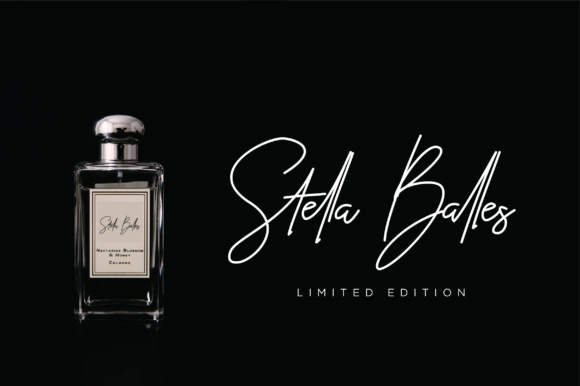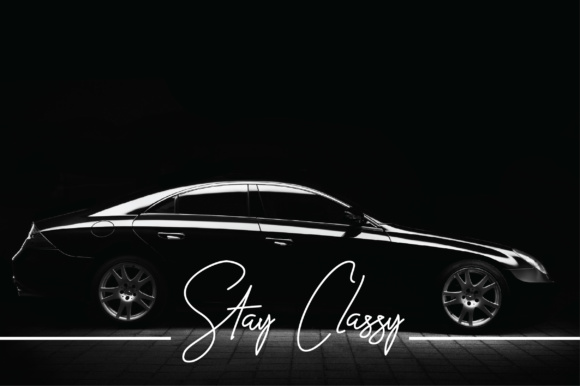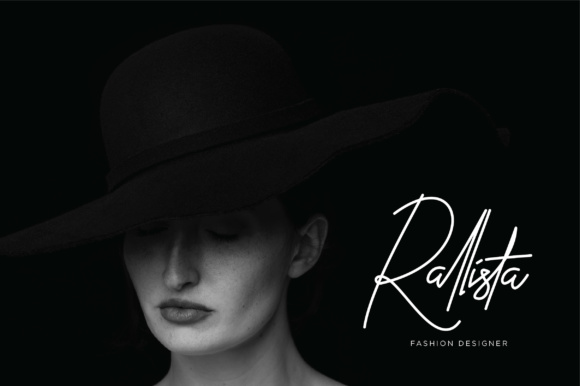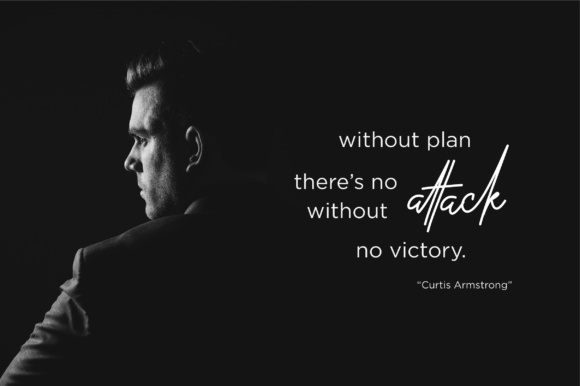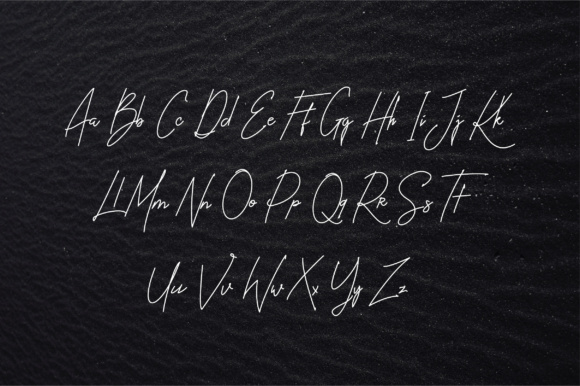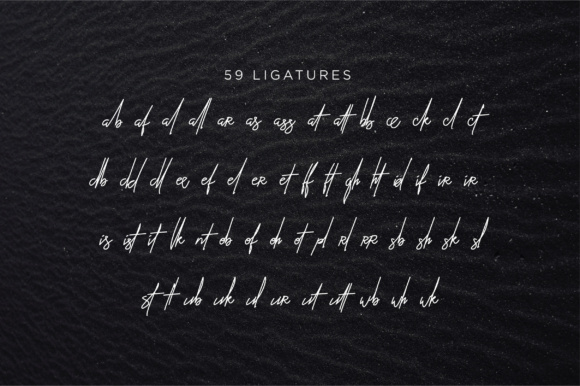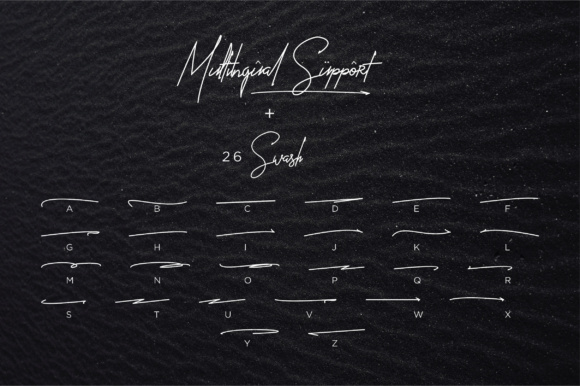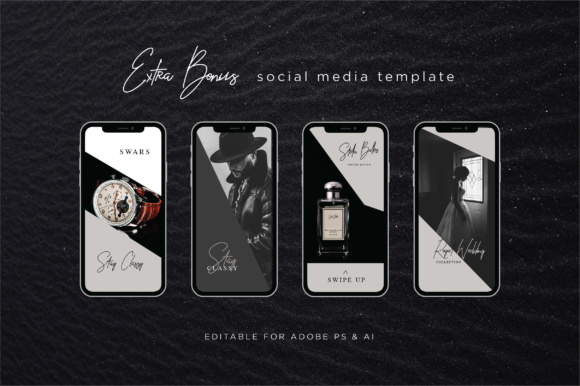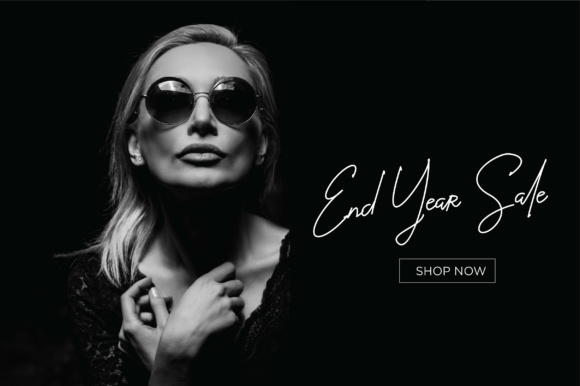
Ballistick Font
About Ballistick Font
The Ballistick is a contemporary signature script. It has a beautiful and classy feel which is perfect for any design that needs a typographic harmony.